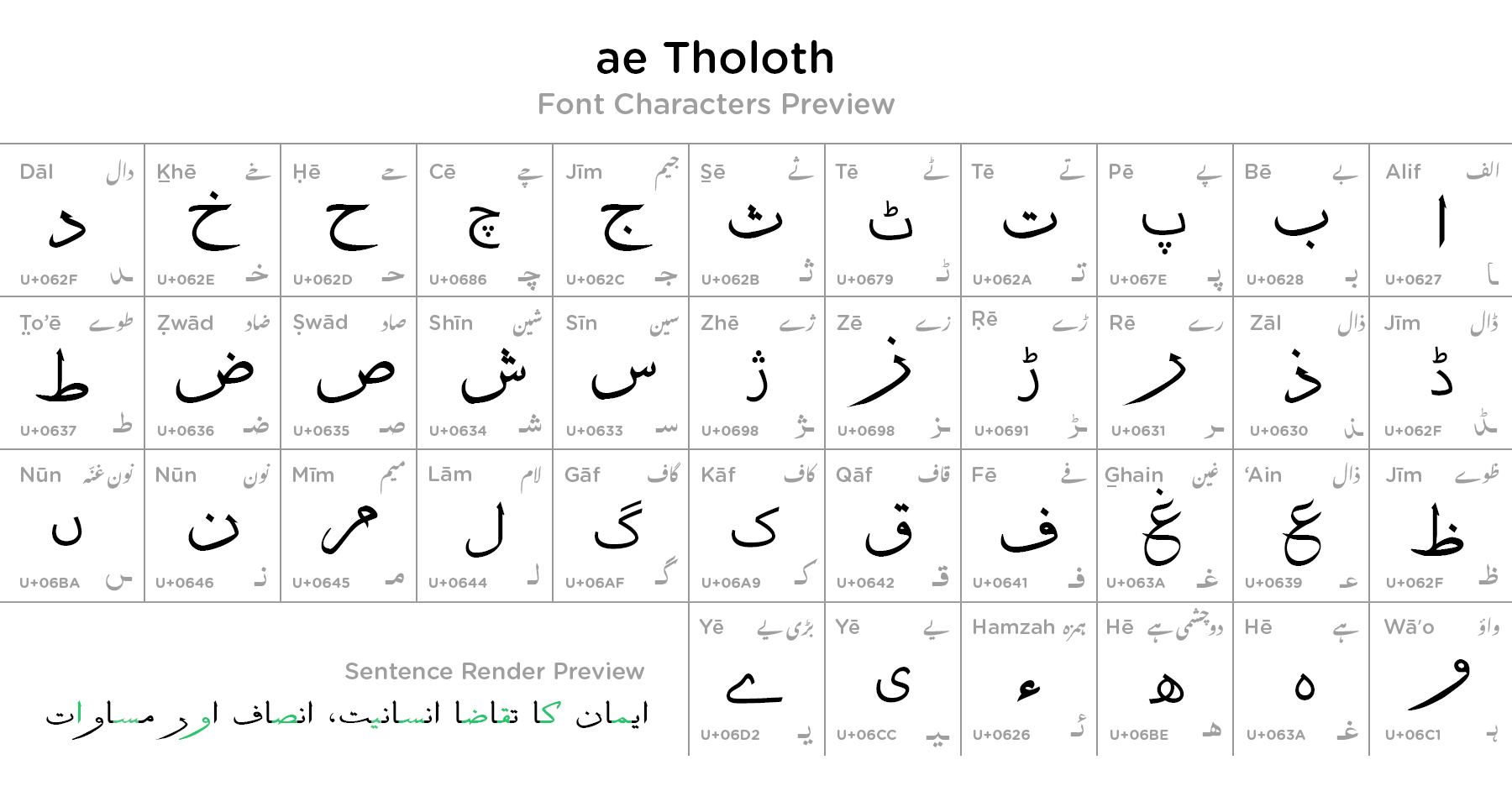
Ae Tholoth is a Qalam writing font with sharp angles, adding a modern calligraphy feel to your designs. It is crafted by the font designer Alawi Hashim Bafageeh and is a trademark of Arab eyes. It was initially released on June 10, 1995, though various versions were released with slight modifications over the decades. As the name suggests, it draws inspiration from the traditional Thuluth or Sulus scripting technique. It can be characterized by bold and expressive strokes that showcase the artist’s hand and create a sense of energy and movement within the text. The angular letterforms feature sharp corners and straight lines, contributing to the font’s bold and firm character. Emphasis on diagonal lines adds dynamism to the text, while decorative elements like flourishes are used in moderation to maintain readability.
Qalam Tholoth fonts balance boldness with legibility, showing a unique style that combines thick strokes, angular shapes, and decorative elements to create visually striking and artistically expressive text. The font boasts 476 characters and 456 glyphs, offering extensive language support for Arabic, Latin, Greek, and symbols. With a normal font-weight and medium width, it ensures a balanced appearance suitable for various design applications such as religious texts, brochures, titles, branding, and more. Compatible with Unicode blocks like Basic Latin, Latin-1 Supplement, Spacing Modifier Letters, Greek and Coptic, Arabic, General Punctuation, Currency Symbols, and more, it guarantees compatibility across different text encoding standards. This font’s versatility and comprehensive language support make it a valuable asset for typography projects requiring multilingual capabilities and diverse character sets.